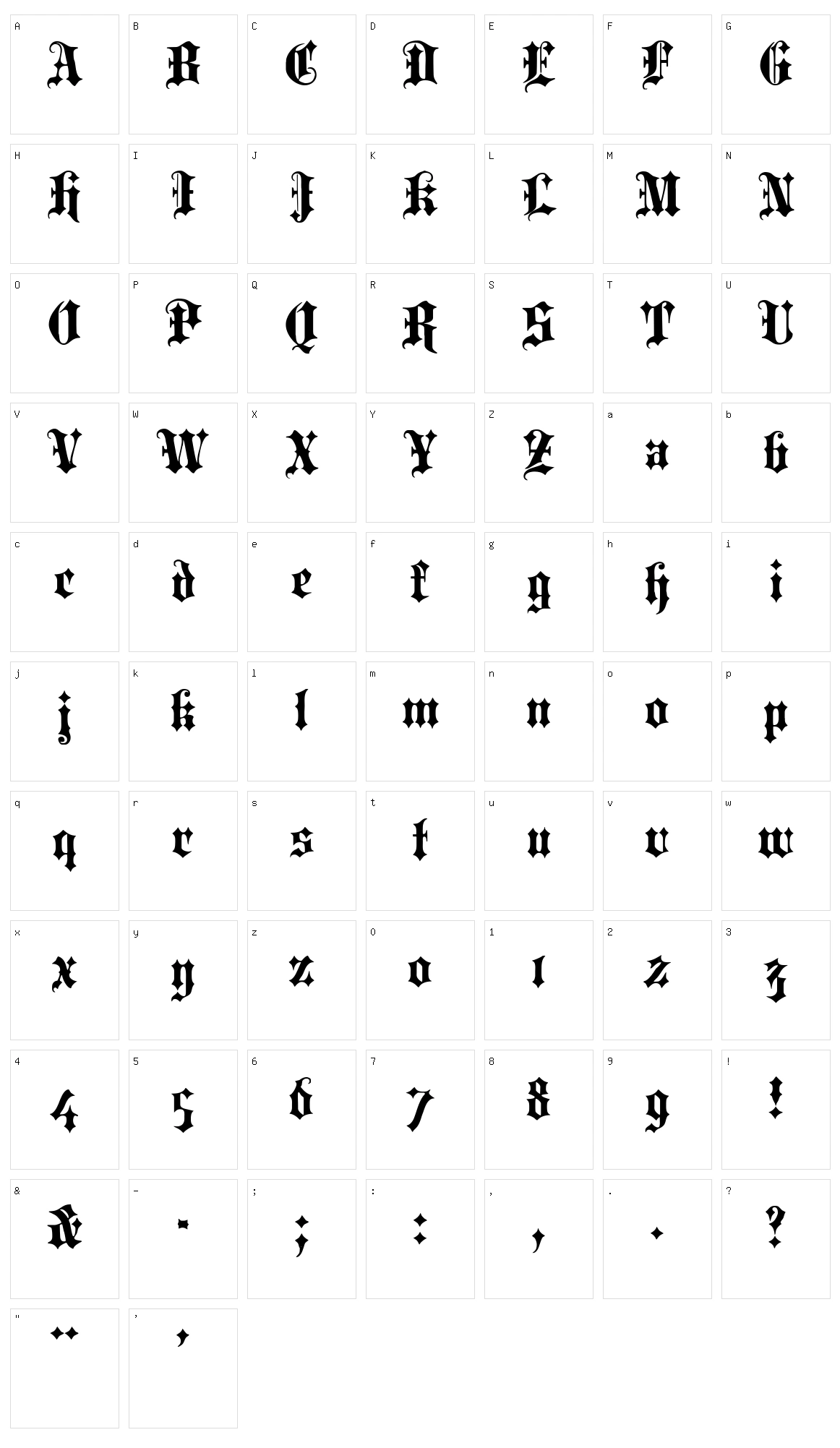
The free font Portcullion is carefully designed by Paul Lloyd, showcasing a thoughtful balance of creativity and usability and belongs to the Gothic font family. When you download the ZIP file, it contains only 29.39 KB of font files, making it lightweight and quick to download. Please review the license details below to understand permitted usage and distribution rights. If license information is not available, we recommend using this font for personal projects only or contacting the author directly for commercial usage permissions.